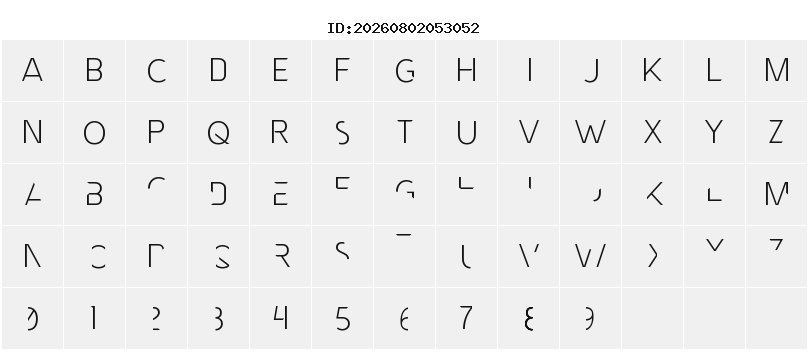
MNML FNT Preview
• Font Name: MNML FNT
• Designer: Michael Muranaka
About MNML FNT.ttf
MNML FNT.ttf is a modern, elegant sans-serif font designed for ultimate readability and visual harmony. Perfect for branding, headlines, web design, and print materials.